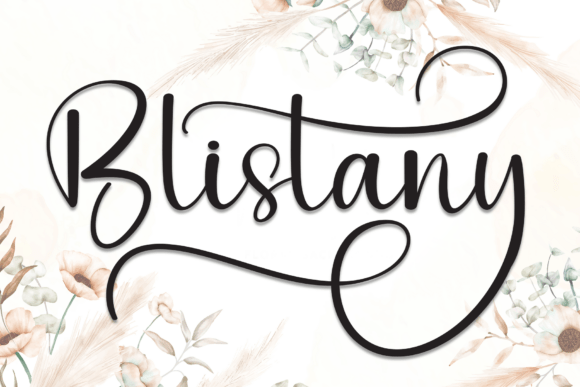
The Designer’s Delight: Blistany Font
I still remember the time I was working on a branding project for a boutique bakery, and I was struggling to find the perfect font to capture their whimsical yet elegant vibe. The client wanted something that would make their packaging and invitations feel personal and high-end. That’s when I stumbled upon Blistany Font, a stylish handwritten script font that instantly won my heart. Its fluid strokes and charming curves brought a warmth and sophistication to my design that I hadn’t been able to achieve with any other font.
- ✨ Elegant yet playful: Blistany Font strikes the perfect balance between modern elegance and a playful touch, making it versatile for various design projects.
- ✅ Fluid strokes and charming curves: The font’s smooth, connected letters bring a personal feel to any design, making it ideal for logos, packaging, and invitations.
- 💫 OpenType features: Blistany Font comes with a range of OpenType features, including stylistic alternates and glyphs, which allow for creative experimentation and customization.
The Not-So-Perfect
While Blistany Font is an amazing addition to any design project, there are a few quirks to be aware of:
- ⚠️ Legibility at small sizes: As with many script fonts, Blistany can become a bit tricky to read at very small sizes. It’s best used at larger sizes or for headlines and titles.
- 🤔 Glyph limitations: While Blistany has a range of OpenType features, some users may find the glyph selection a bit limited compared to other fonts.
The Story Behind Blistany Font
Blistany Font was designed by a team of creatives who wanted to create a font that would bring a personal touch to digital designs. Inspired by the fluid strokes and charming curves of handwritten scripts, they crafted a font that would blend modern elegance with a playful touch. The result is Blistany Font, a versatile typeface that’s perfect for a wide range of design projects.
Q: What type of designs is Blistany Font best suited for?
A: Blistany Font is ideal for logos, packaging, invitations, and any design project that requires a touch of elegance and playfulness.